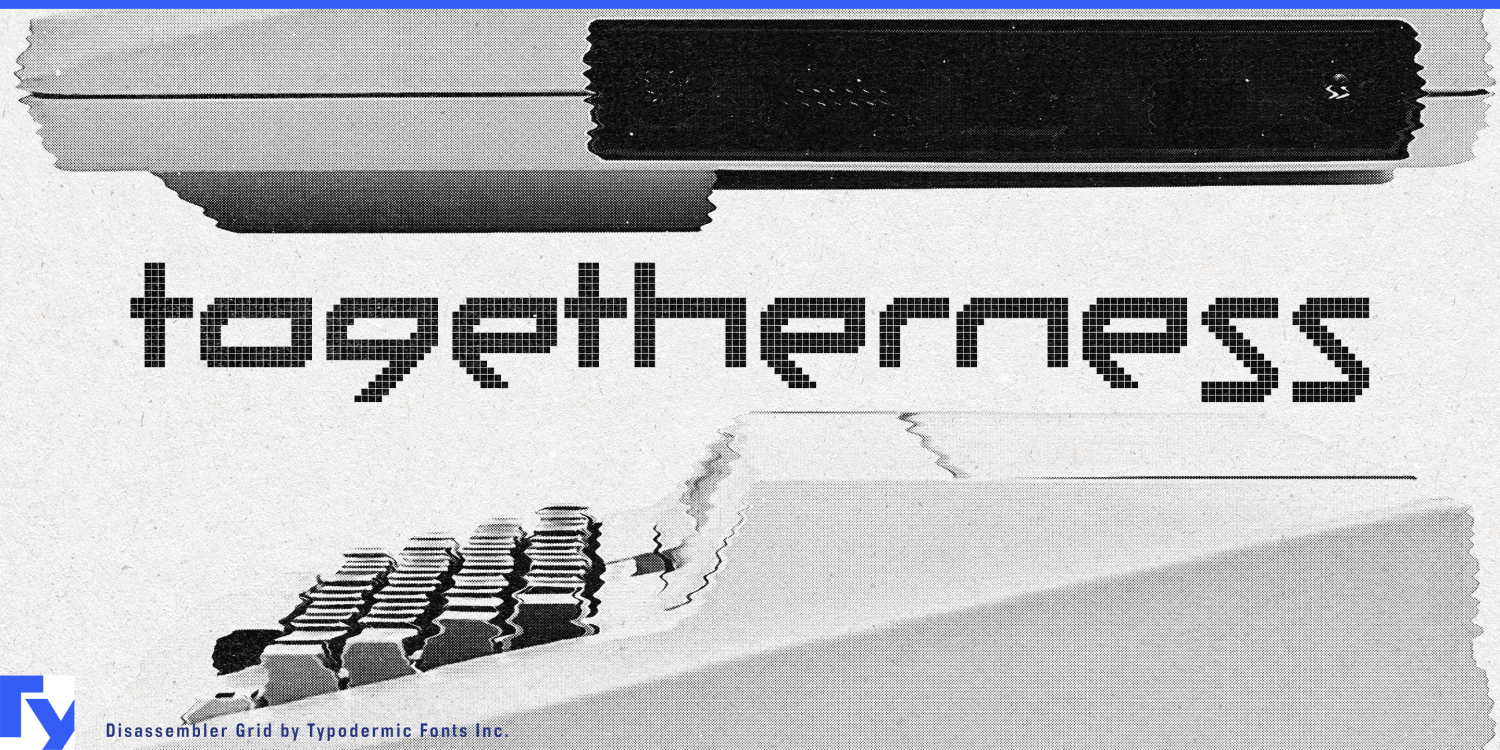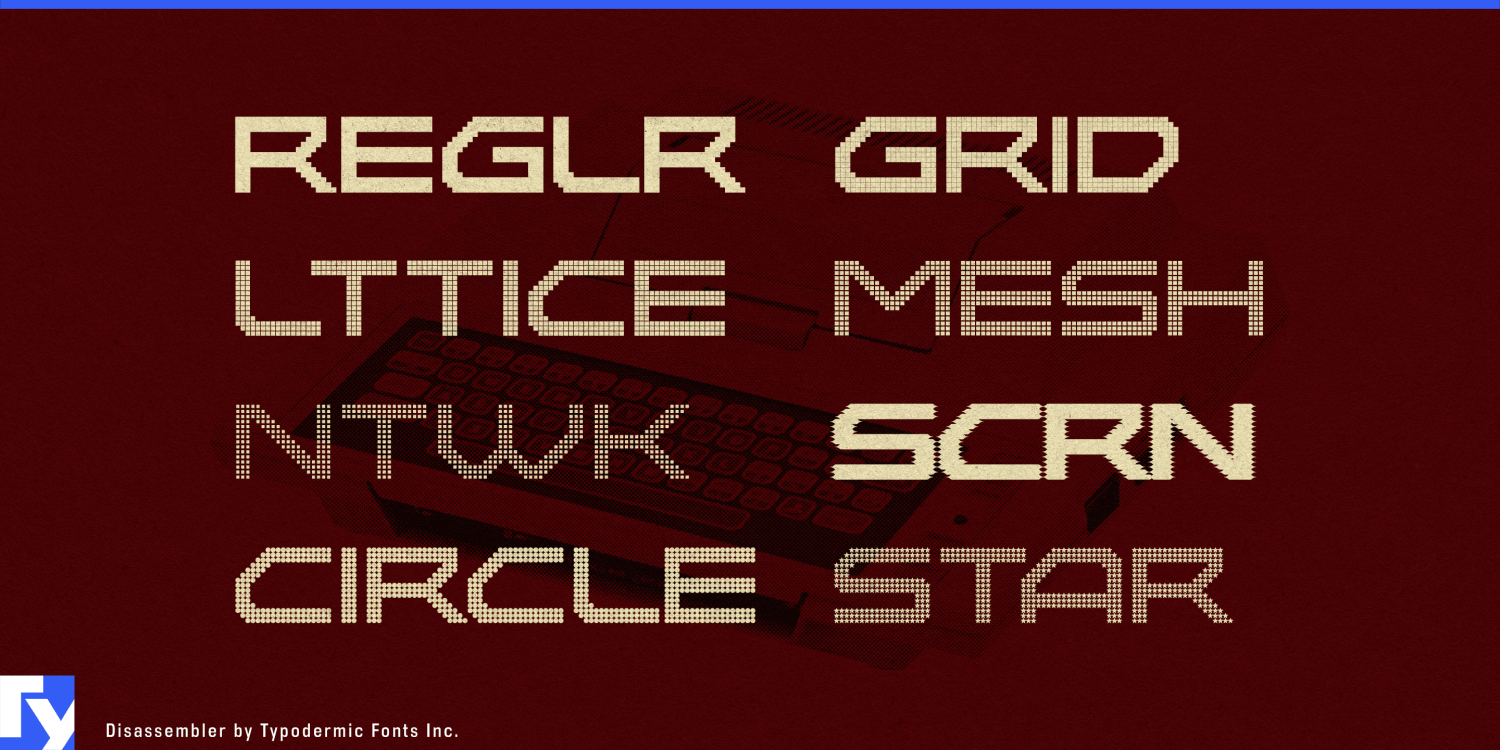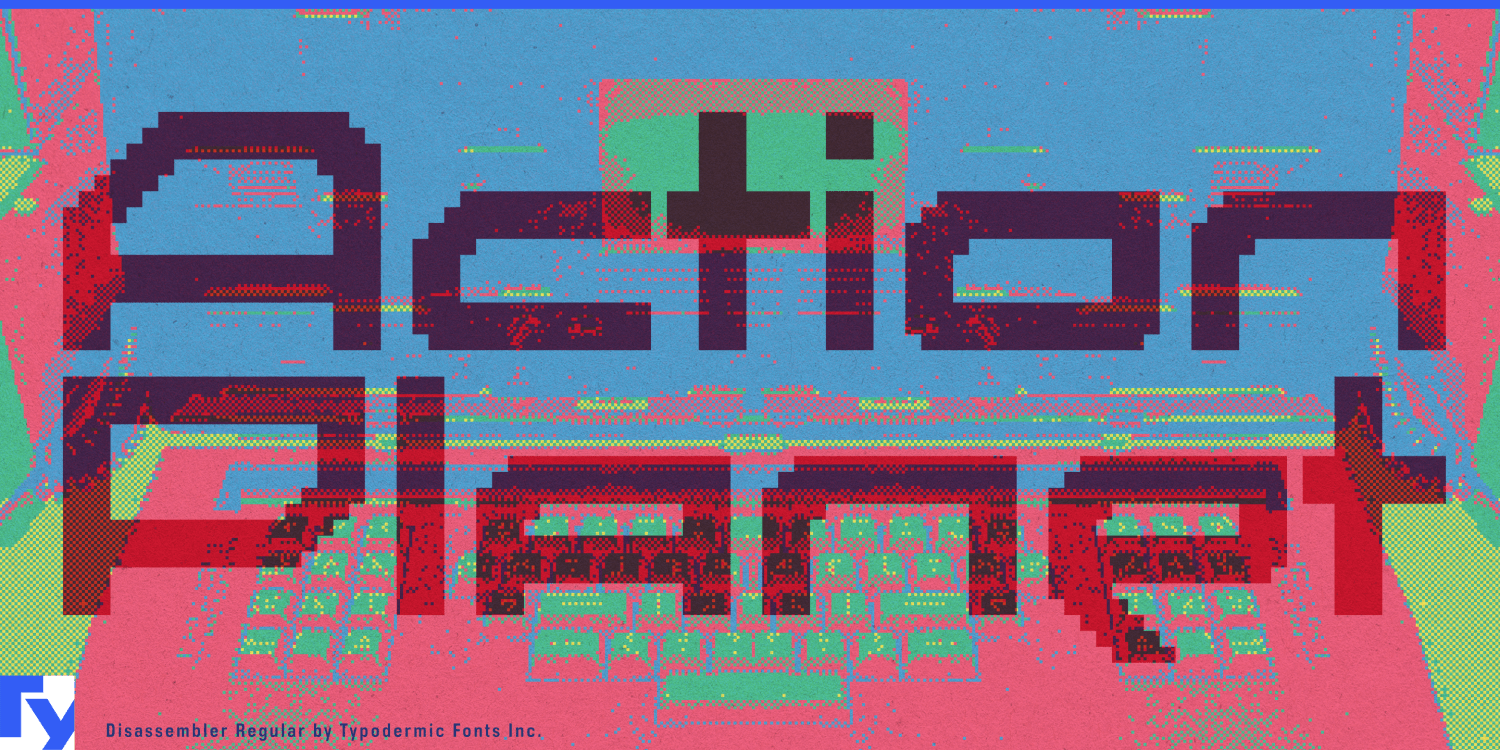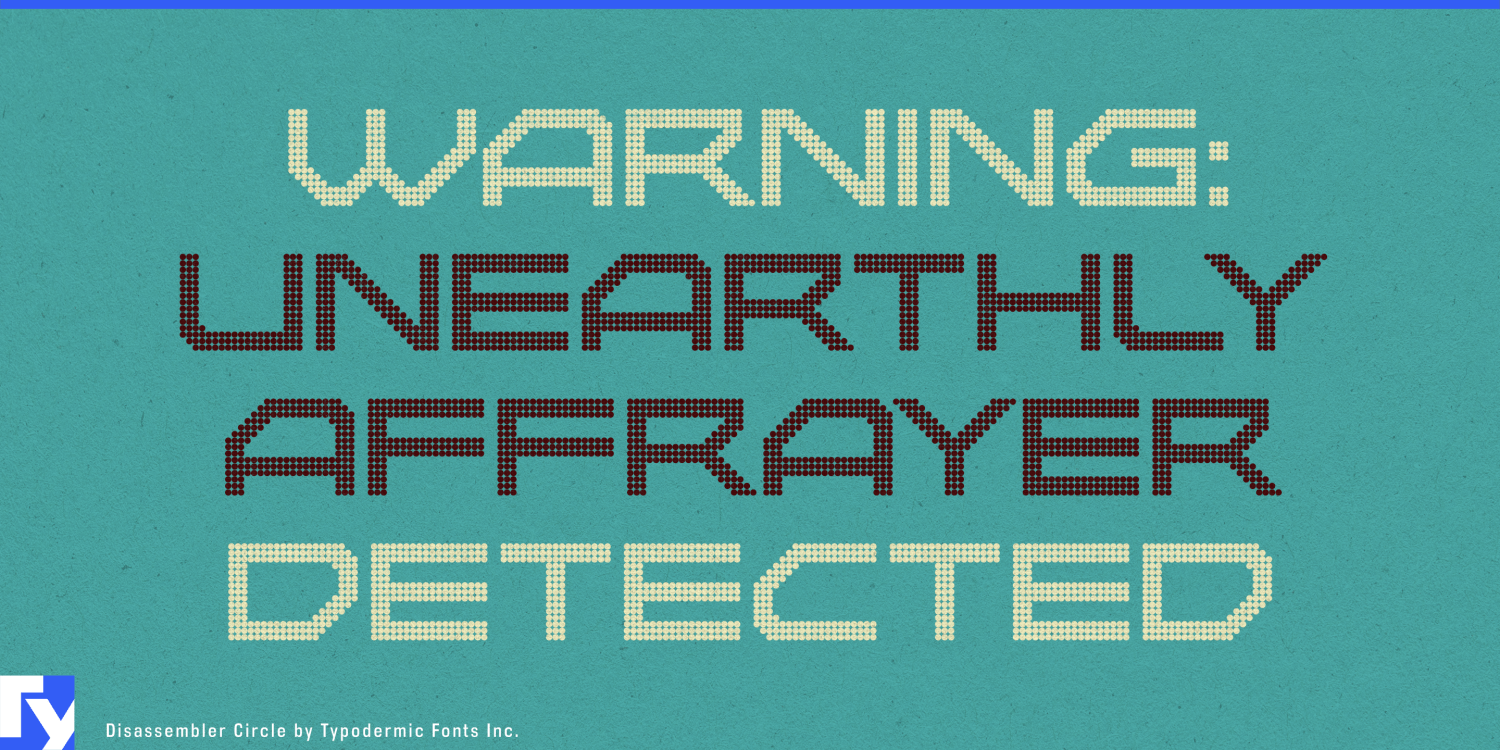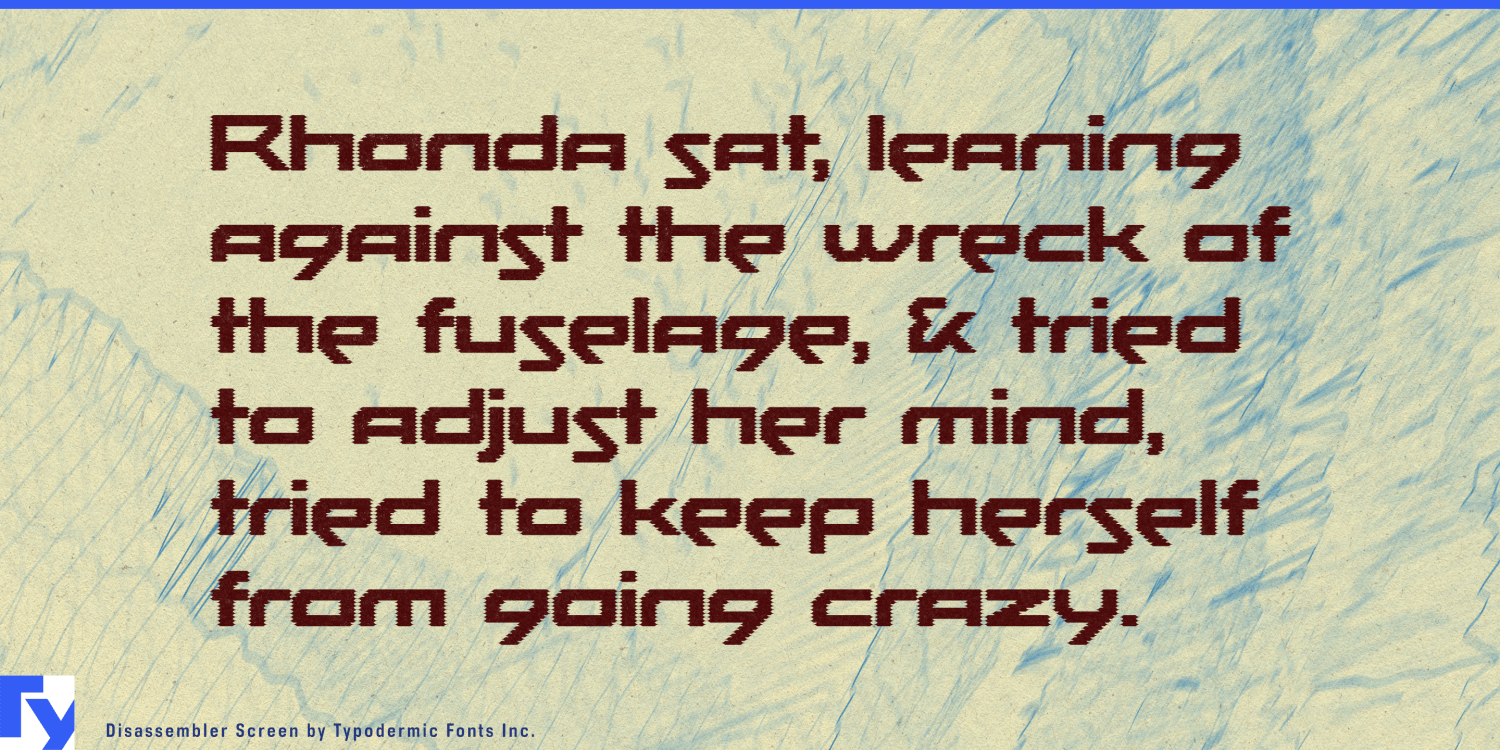
About Disassembler
Disassembler: The typeface that reboots typography for the 8-bit age. This Typodermic Fonts creation isn’t just a font—it’s a time machine, catapulting your designs back to the dawn of digital with pixel-perfect precision. Crafted with…